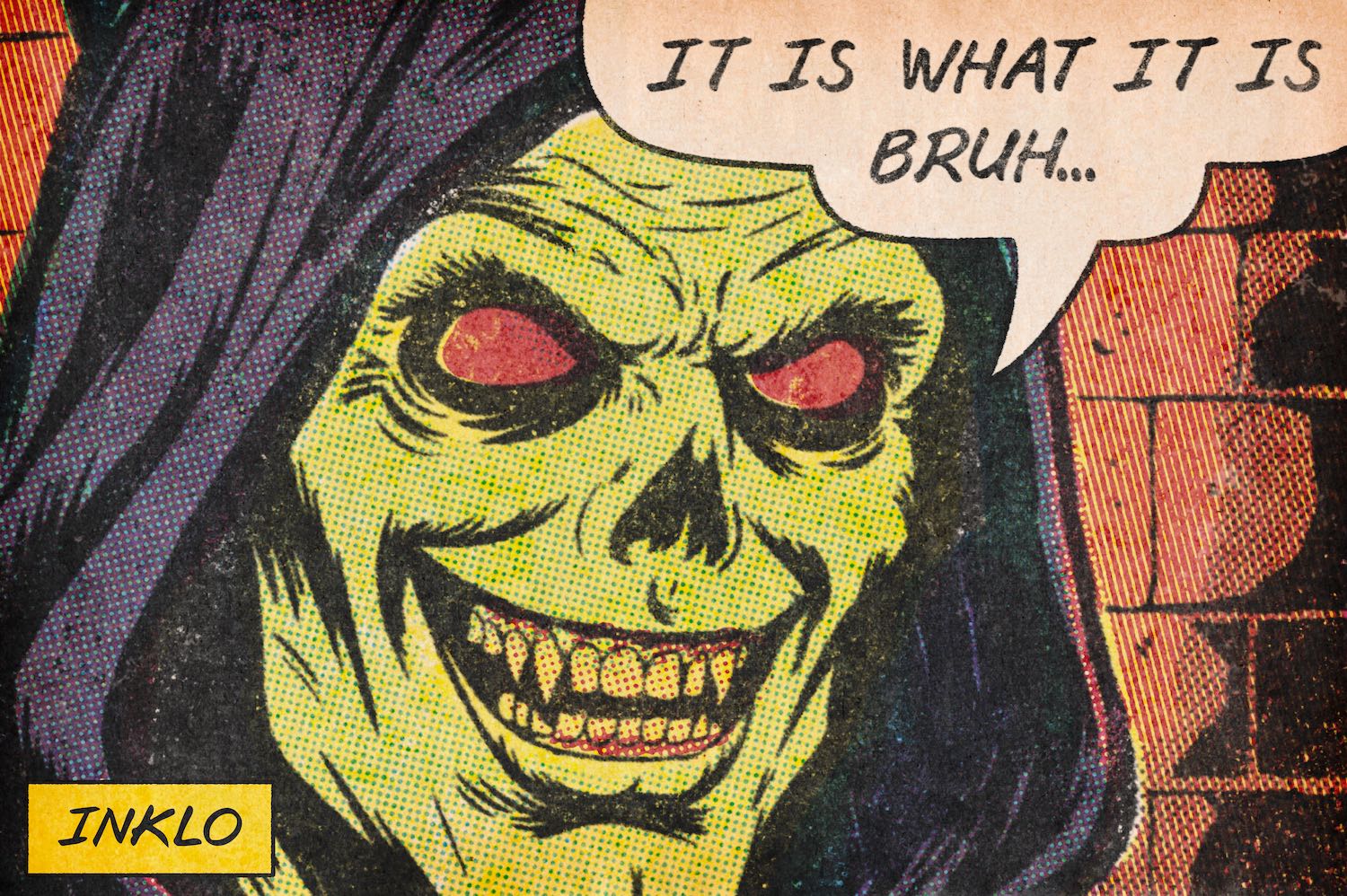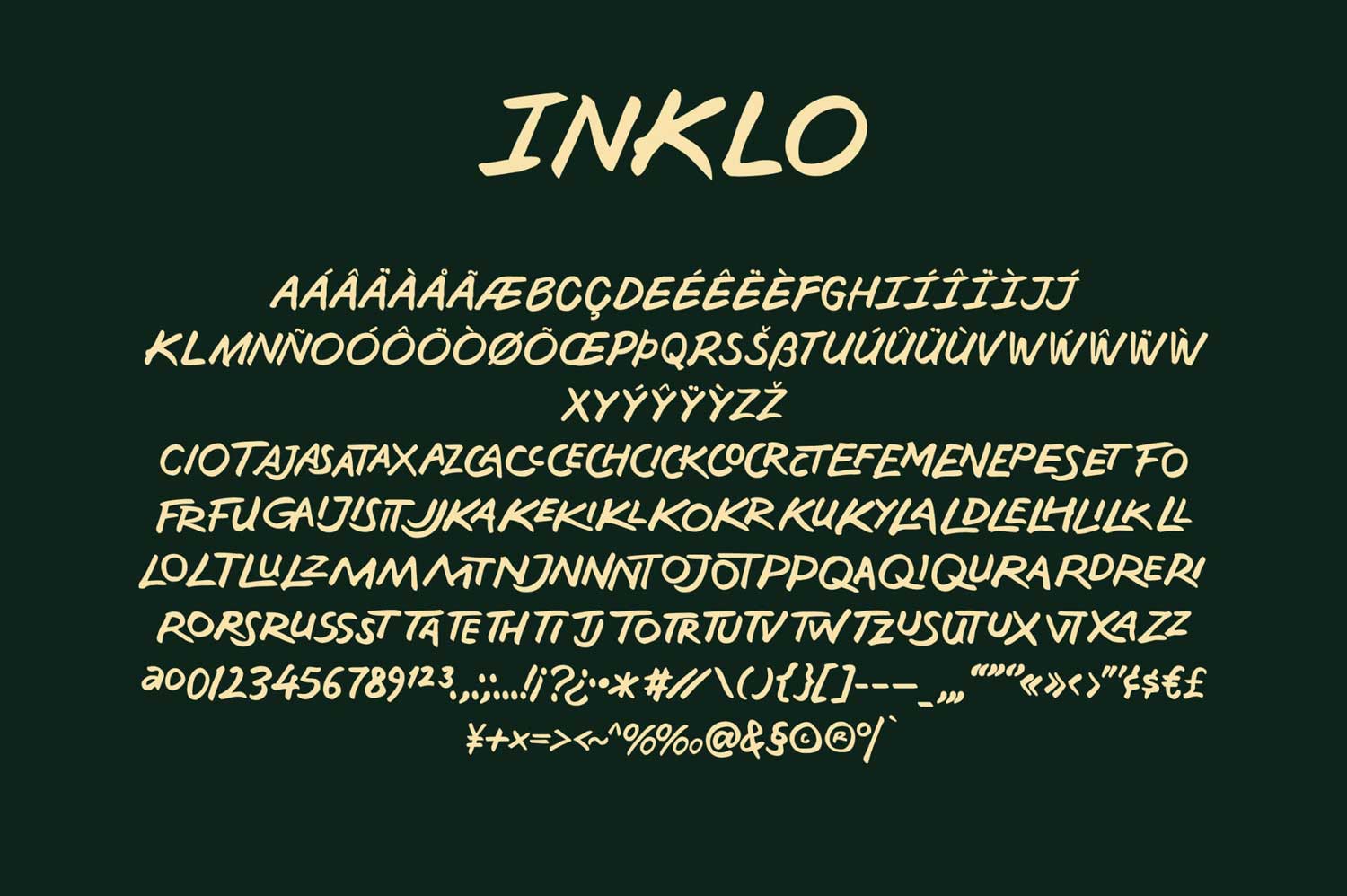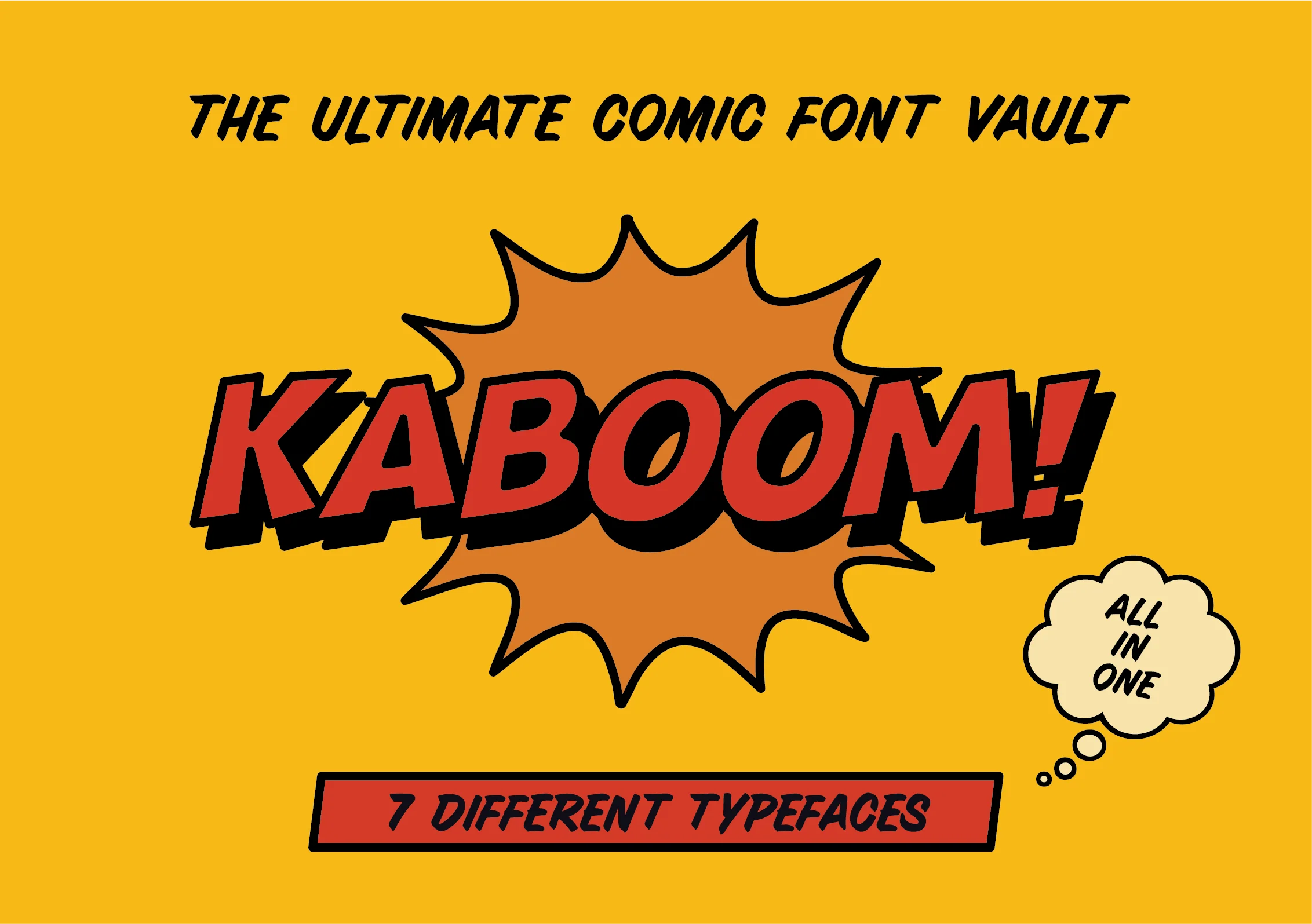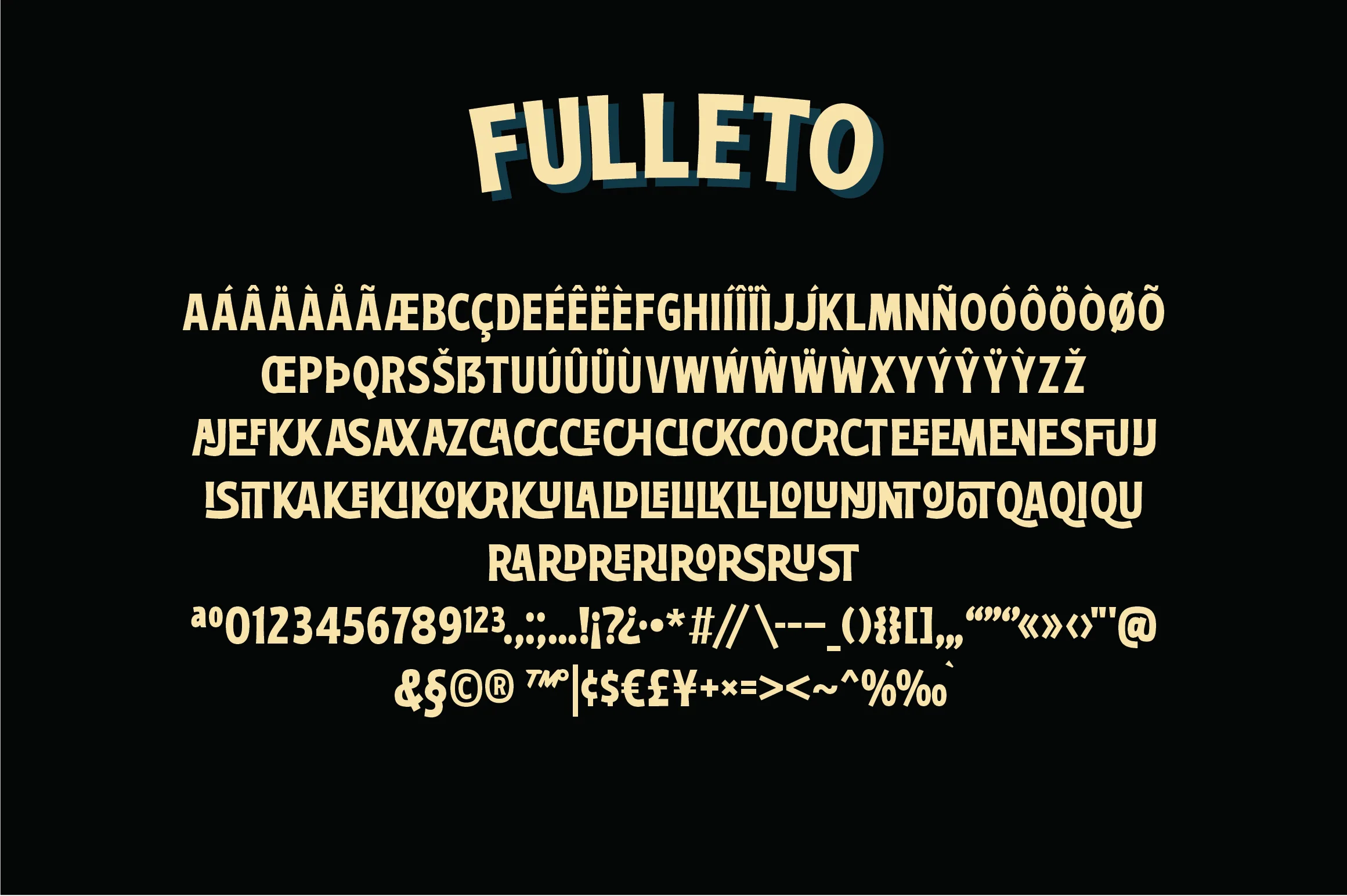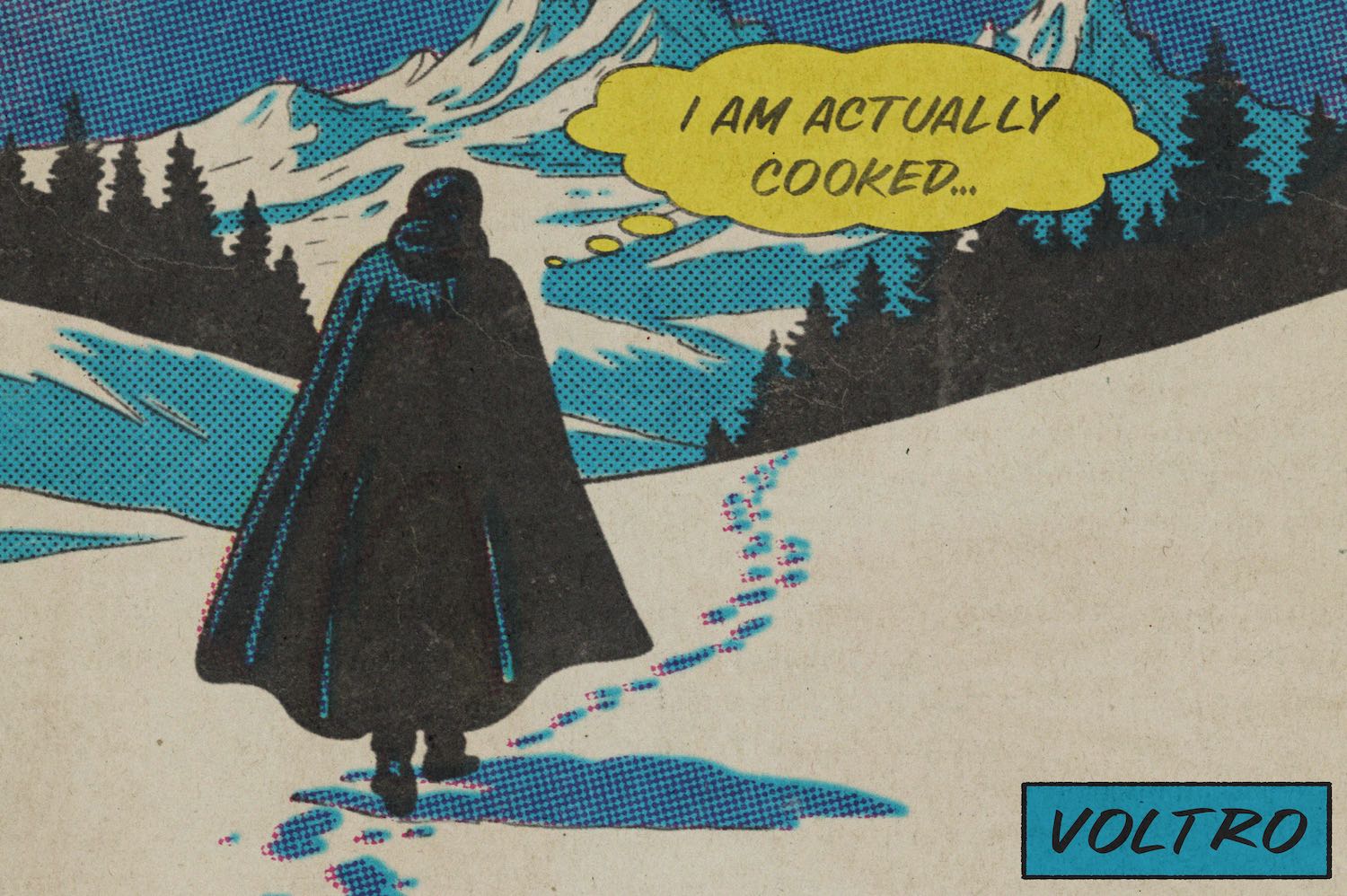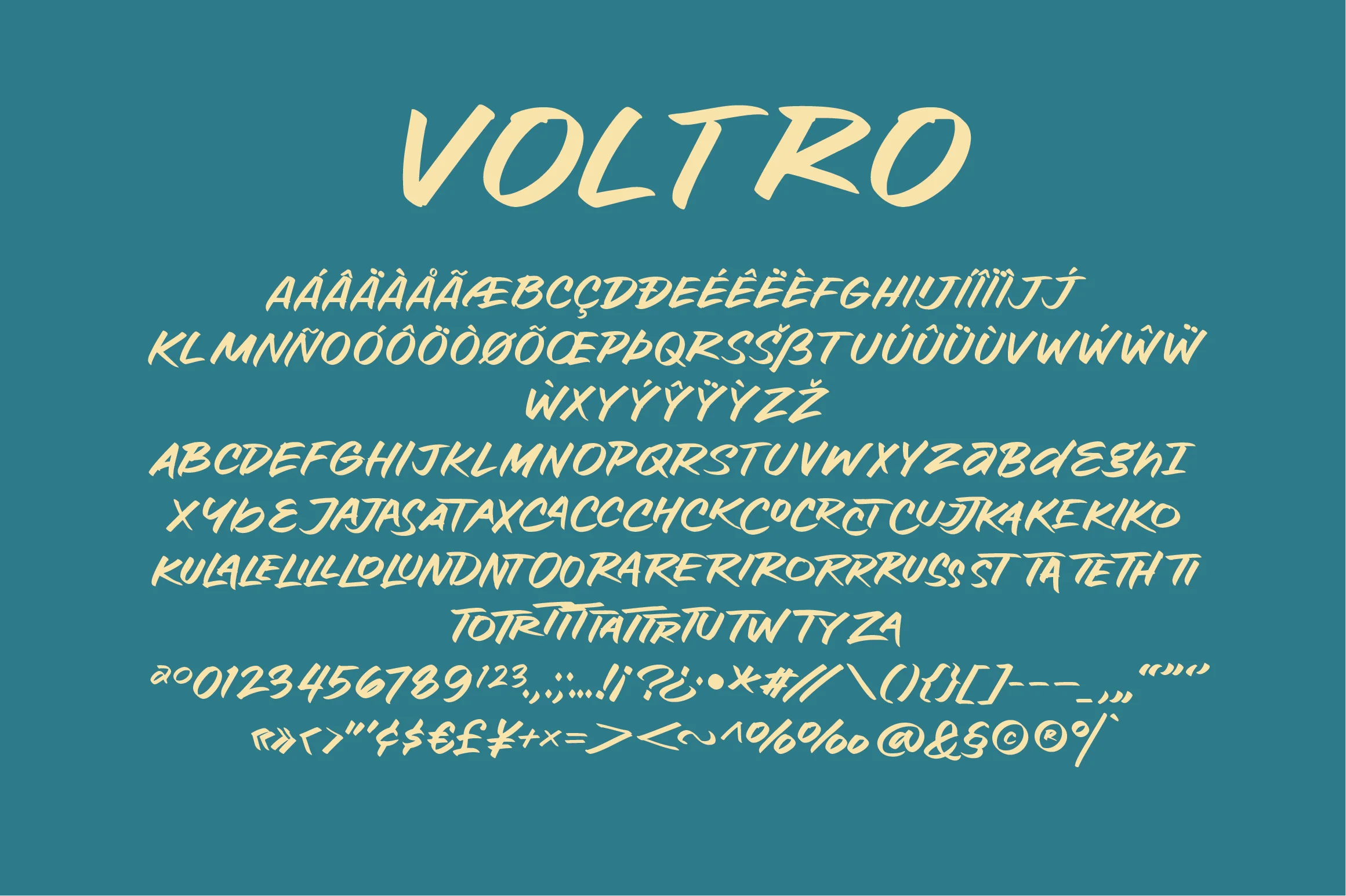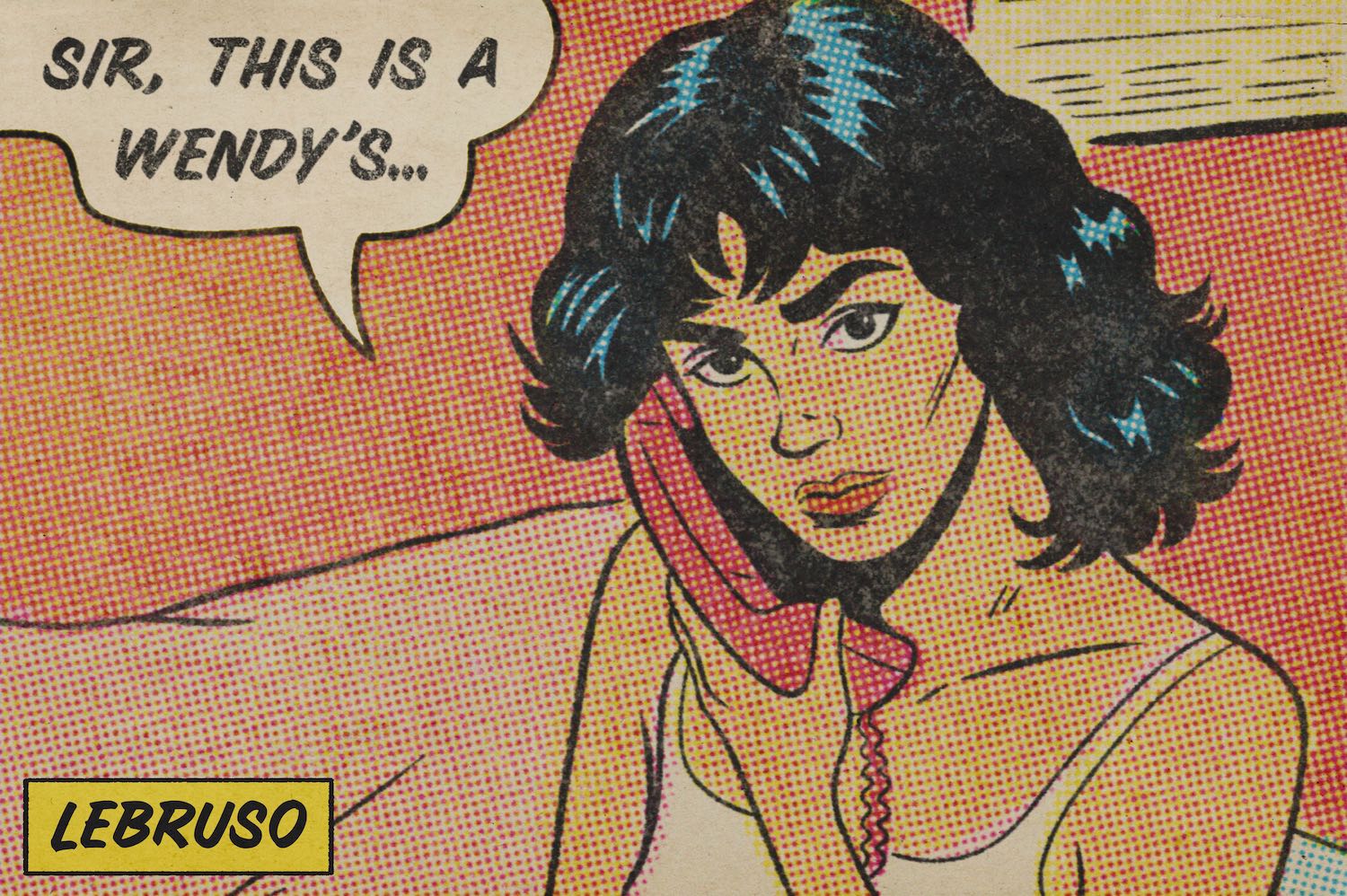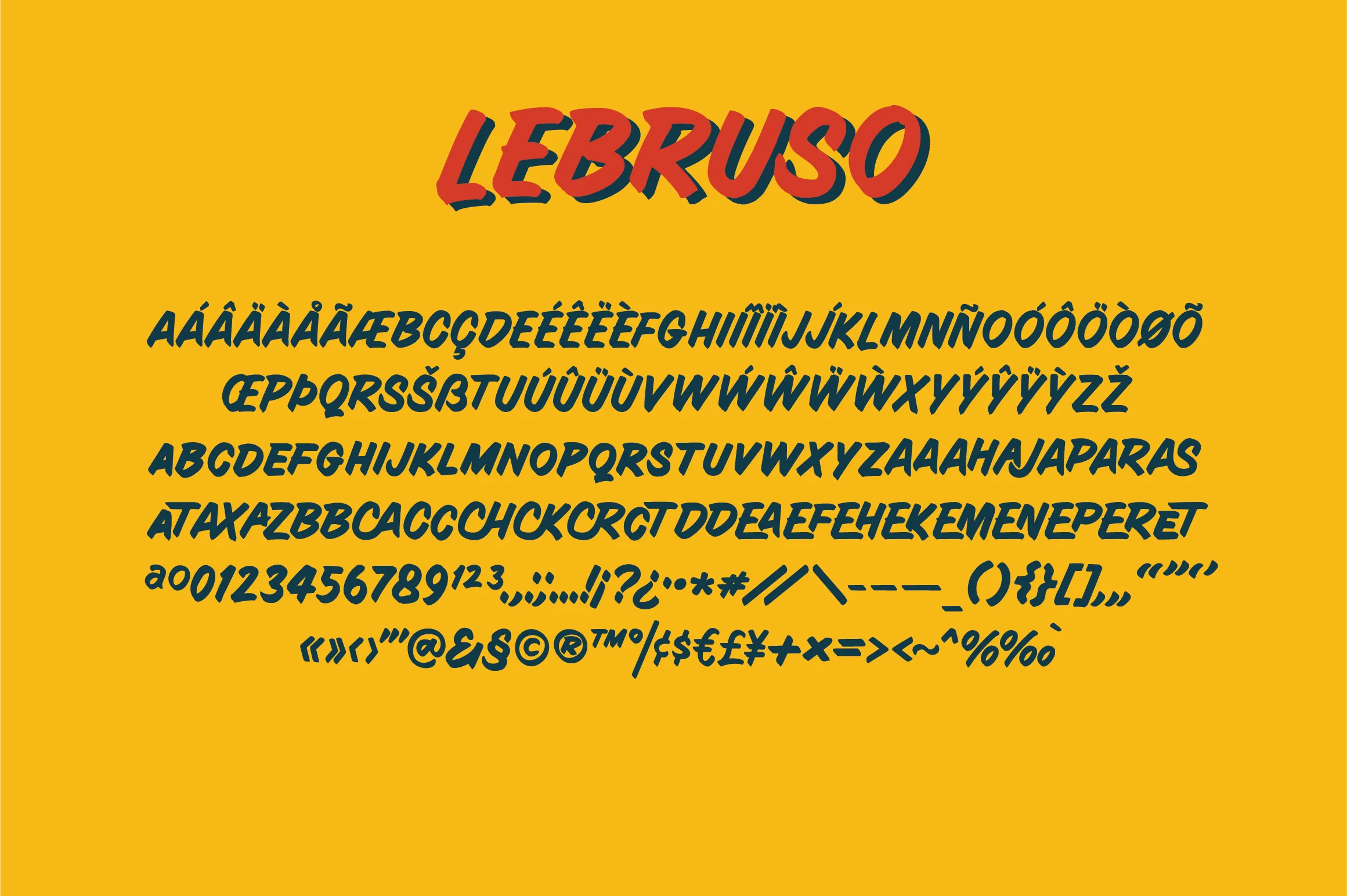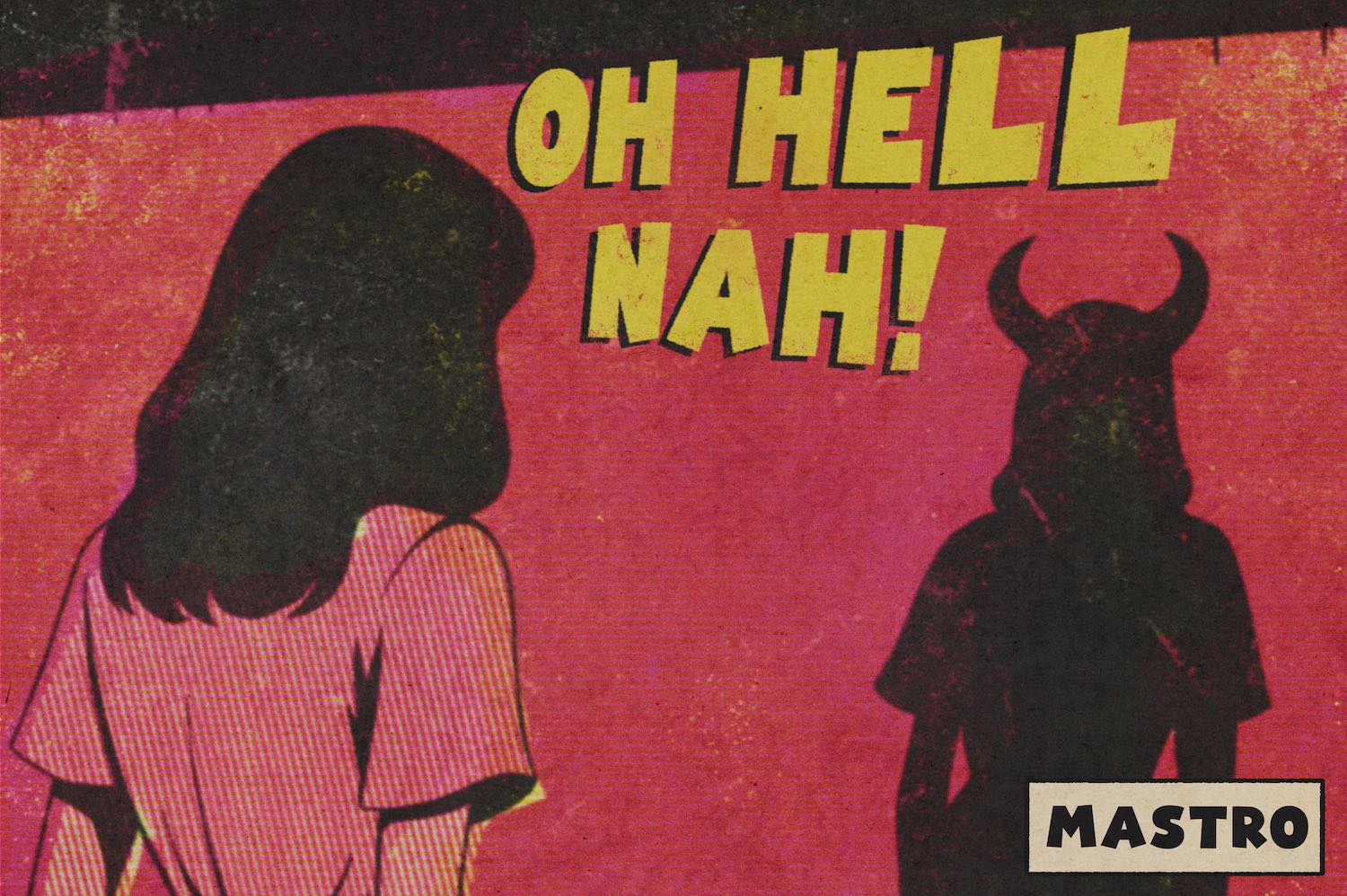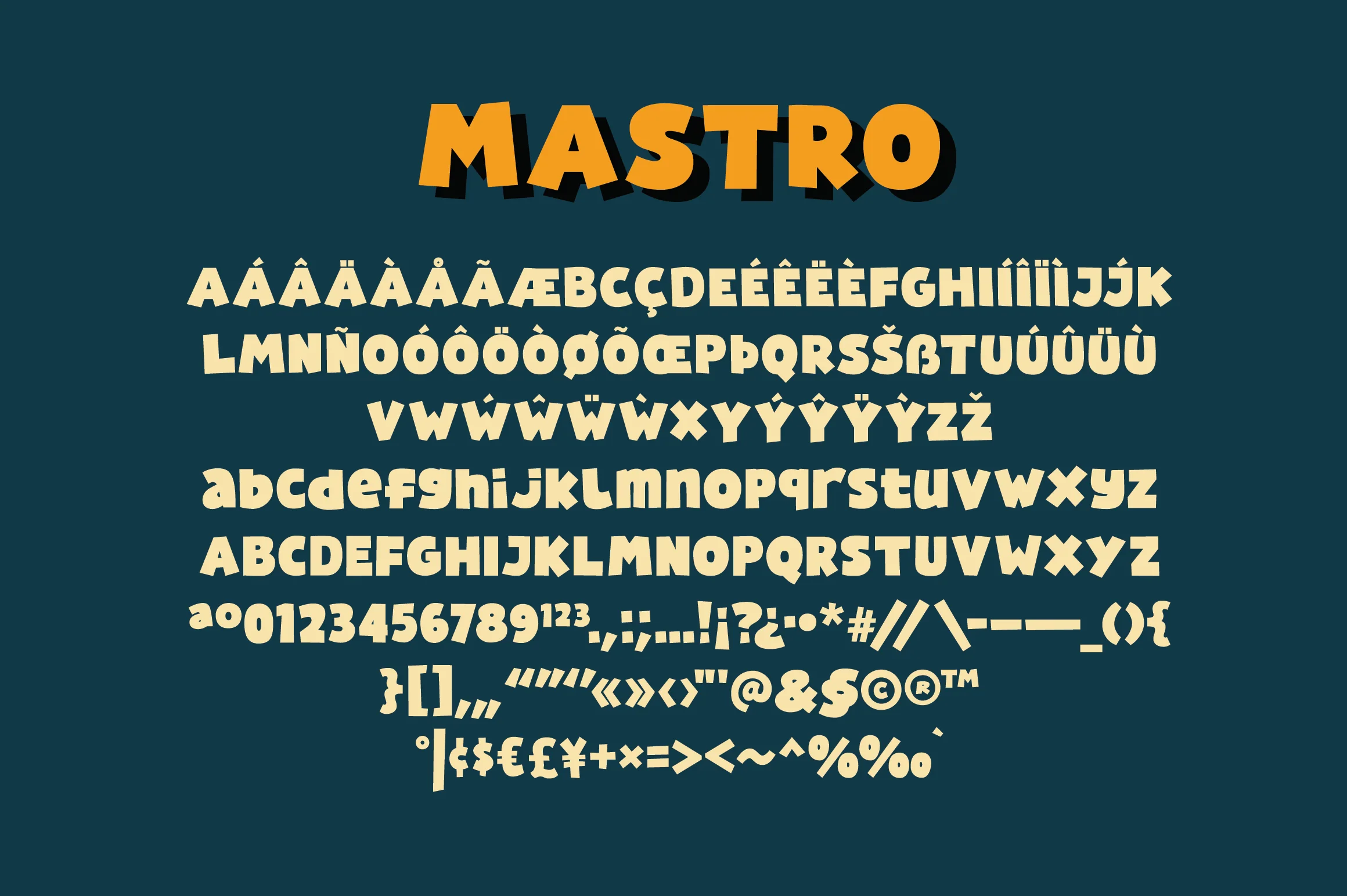
7 Premium Fonts Built for Comic Artists, By Retro Fanatics
It started with a simple question between friends: “What font doesn’t exist but should?” When Jeremy from Hustle Supply Co. asked, we didn’t hesitate. We told him the world needed truly great comic fonts. The kind that feel like they were pulled off a vintage spinner rack in 1973, but with the polish and precision a modern comic artist demands.
The result? A powerhouse collaboration between two lettering-obsessed shops: RetroSupply Co. and Hustle Supply Co. The result is the Ultimate Comic Font Vault. 7 typefaces explicitly crafted for comic creators.
Whether you’re lettering a gritty noir panel, dropping a KAPOW! in the middle of a chase scene, or designing a nostalgic print piece that nods to the golden age of comics, this vault has you covered.
- 7 Fully Realized Fonts. Including dialog-ready sans-serifs, energetic brush scripts, and explosive display styles
- Built for Comics. Each font designed with pacing, texture, and tone in mind
- Made to Work Together. Mix and match styles effortlessly for cohesive layouts
- Crafted with Character. A Hustle Supply x RetroSupply collab packed with personality, not just polish
If you're tired of phoning it in with Comic Sans clones this bundle brings the authenticity and energy your work deserves.
FULLETO (The Heroic All-Rounder)
A bold, blocky typeface with a slight tilt and solid footing. Perfect for dialogue boxes, captions, and anywhere you need a classic, readable Comic Sans with muscle. Feels like a mid-century pulp mag, reimagined for today. -
LEBRUSO (The Speedster Script)
Leaning hard into those dynamic brushstrokes, Lebruso looks like it was lettered mid-run. Great for expressive dialogue, action sequences, or titles that need to look like a caffeinated cartoonist scrawled them at 3 am. -
MASTRO (The Heavy Hitter)
Loud, chunky, and full of punch, Mastro is your go-to for titles, sound effects, and bold statements. It’s like if a boxing glove learned kerning. Use it when you want your text to land with a THUD. -
SUPRO (The Versatile Veteran)
A confident sans with a subtle lean and tight tracking, ideal for both sound effects and in-panel headlines. Think of it as the workhorse font: steady, energetic, and always on beat. -
ULTIMO Extrude (The Cool Cat of Covers)
Tall, smooth, and stylishly slanted, Ultimo feels like it belongs on the cover of a lost Italian crime comic. Great for dramatic titles or anywhere you want a bit of swagger in your lettering. -
ULTIMO Regular (The Chaotic Twin)
A wild, distorted take on Ultimo, like its ink was dragged across the page by a villain’s ghost. Use it for speed lines, explosions, or when everything’s going sideways . -
INKLO (The Midnight Mouthpiece)
Inklo is a clean, hand-drawn dialogue font inspired by classic horror and pulp comics. Its smooth strokes and subtle wobble make every speech bubble feel alive without distracting from the art.
VOLTRO (The Electric Ink-Slinger)
A lightning-fast brush script that crackles with motion. Voltro was made for mad scientists, masked vigilantes, and anyone shouting over the roar of a 1950s rocket launch.